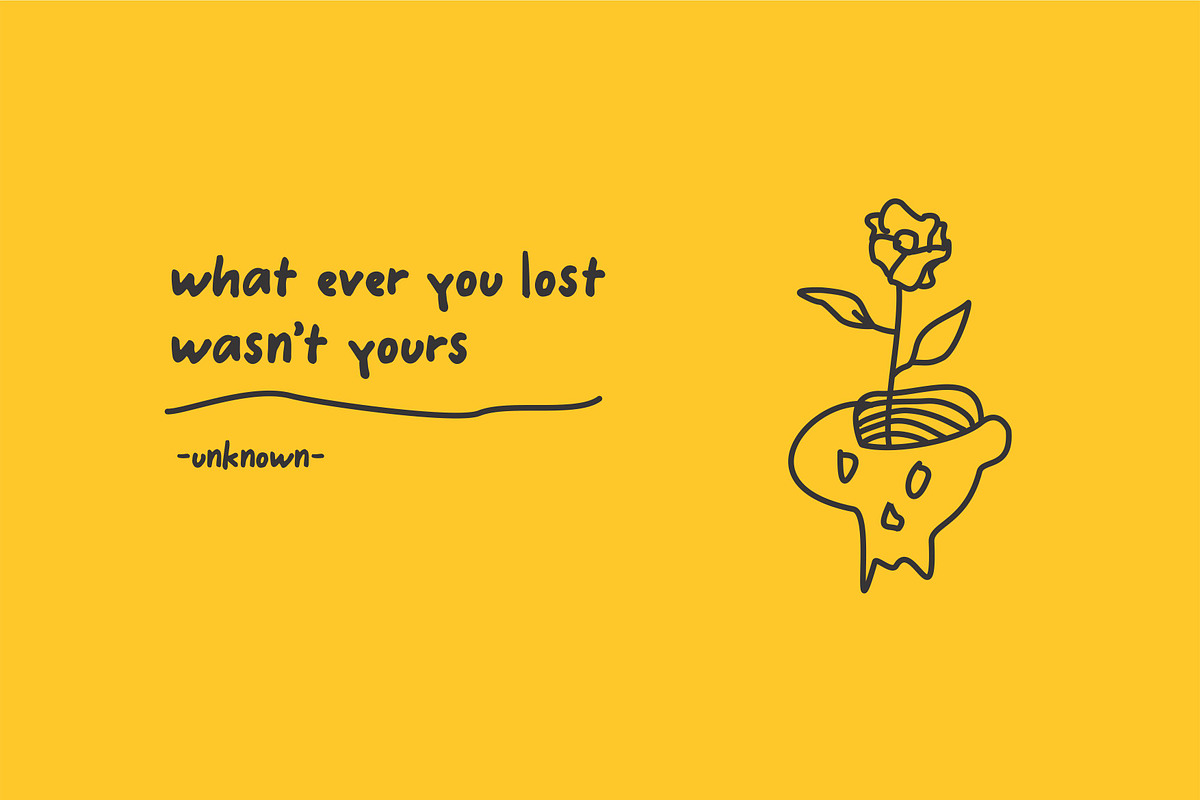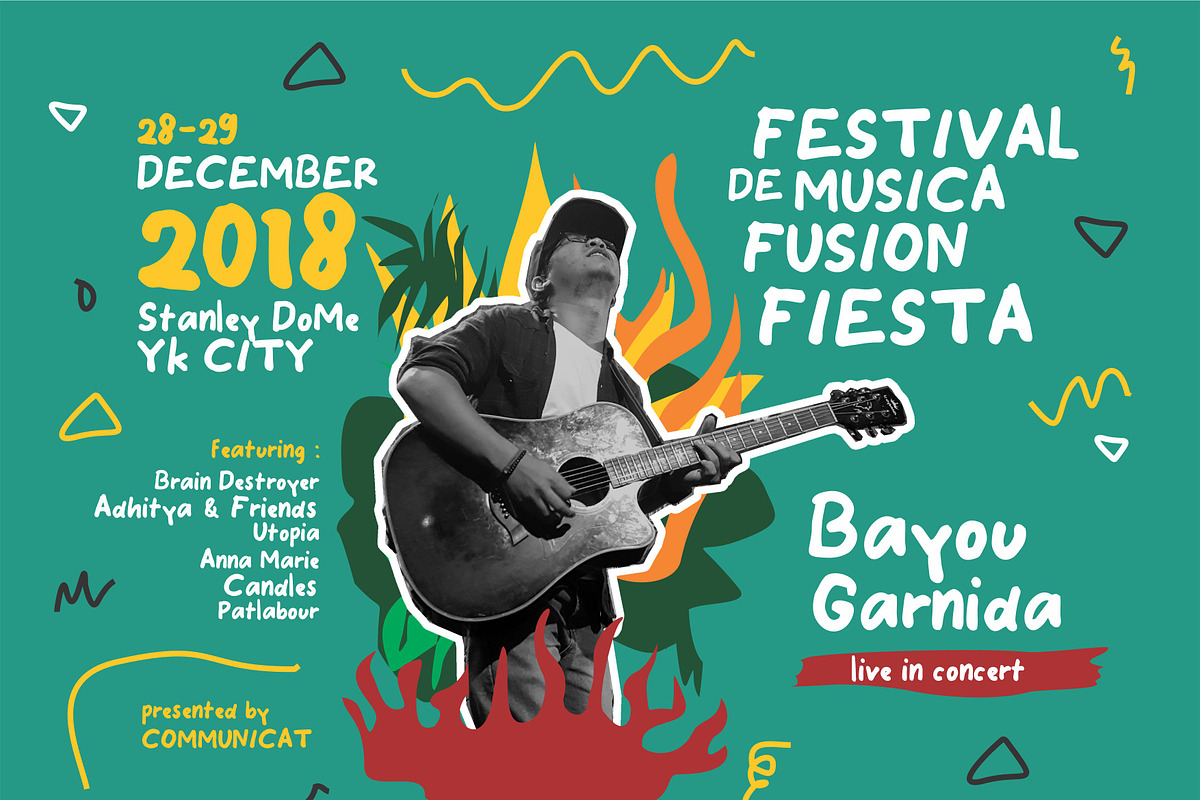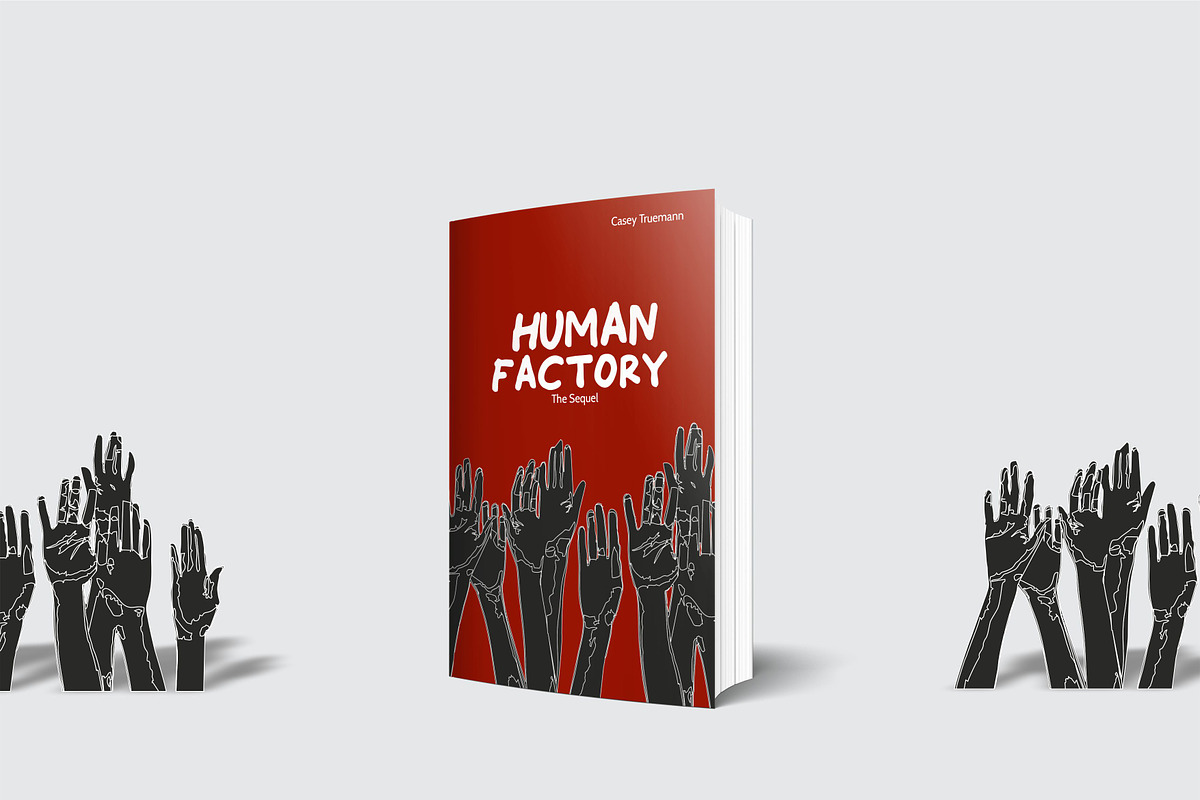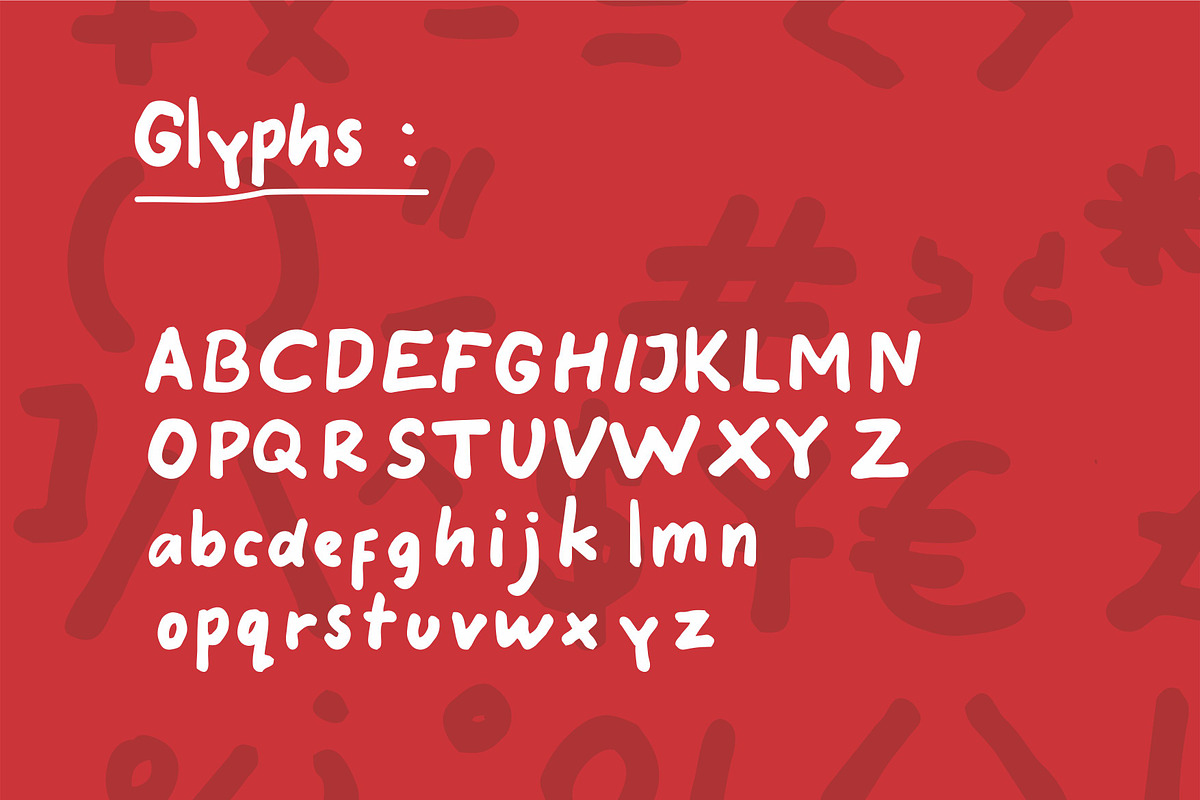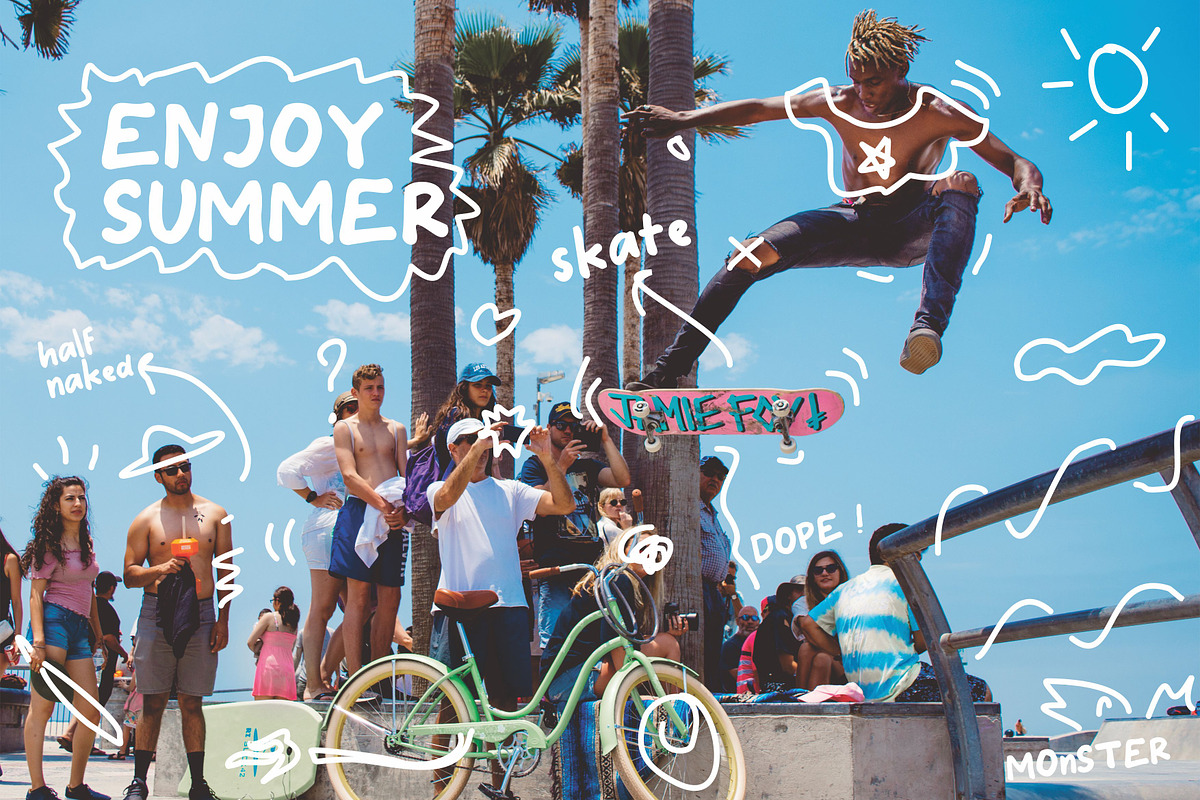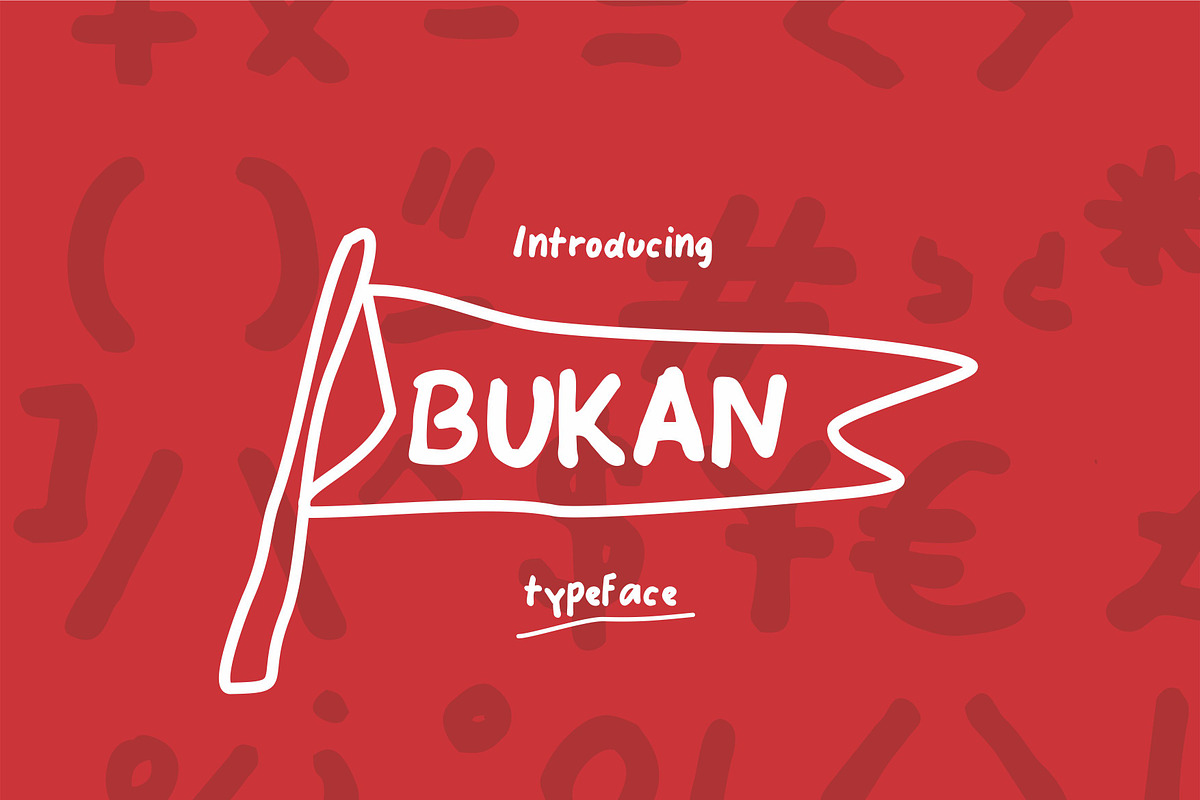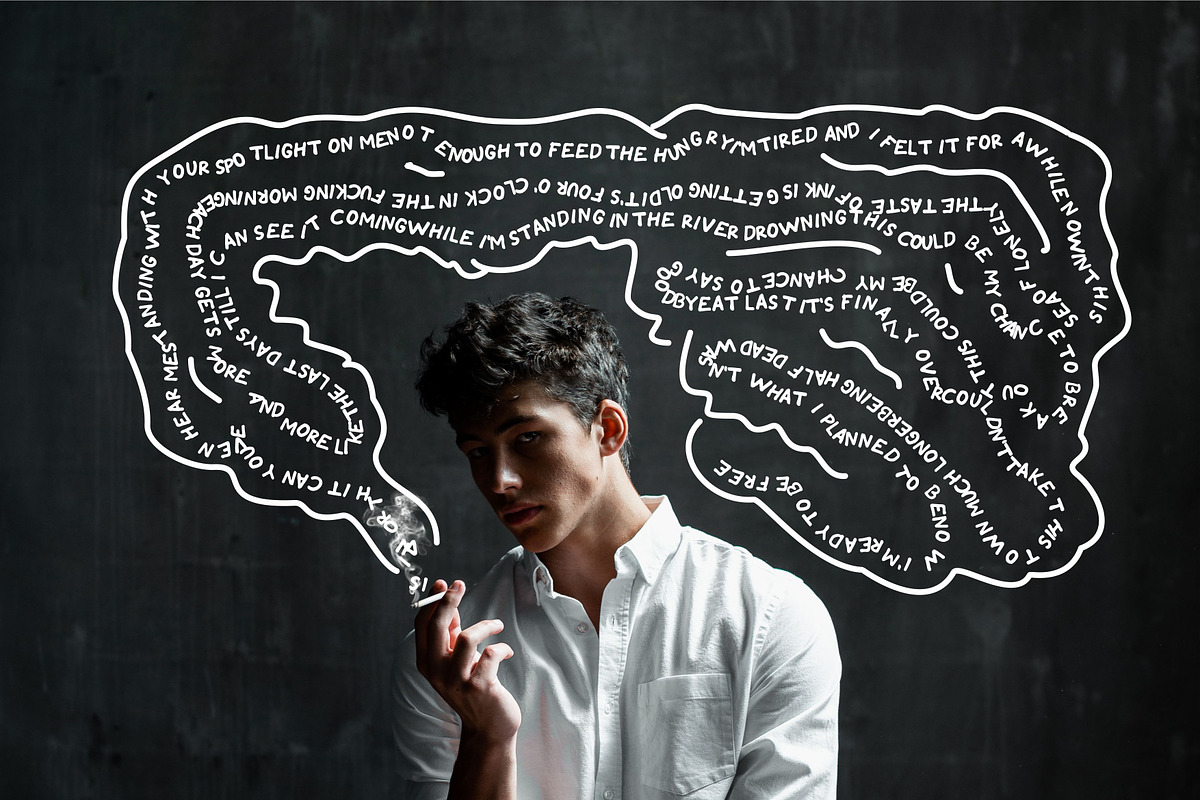
BUKAN TYPEFACE
Hello there ! this is Bukan Typeface. Another Handwritten Typeface with fun and expressive feeling. Inspired by marker handwritten stroke. You can do so much with this typeface. Especially if you want to express your feeling without thinking too much, just like your daily writing, or doodling. Hope you like it !